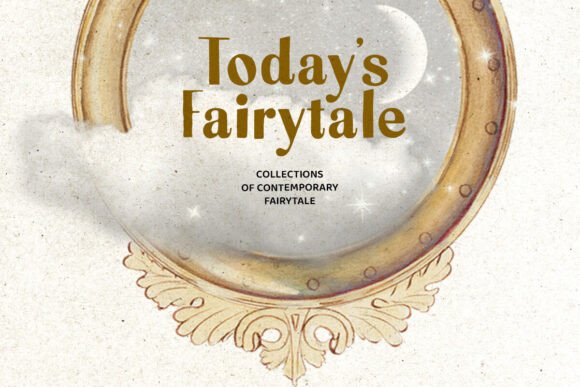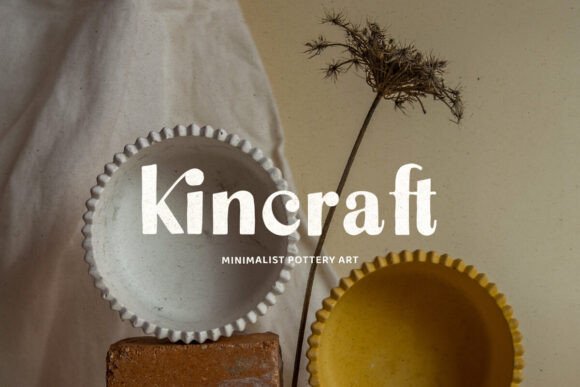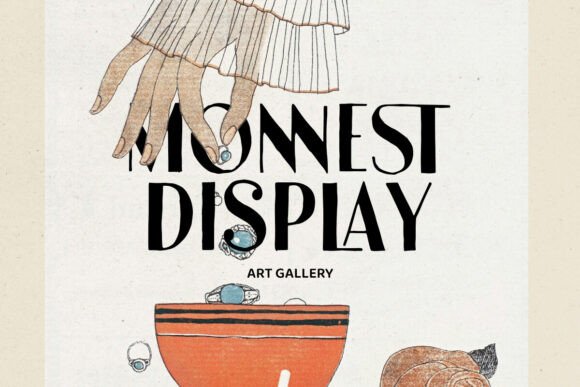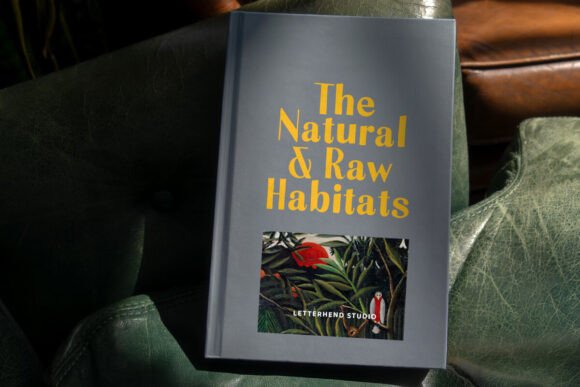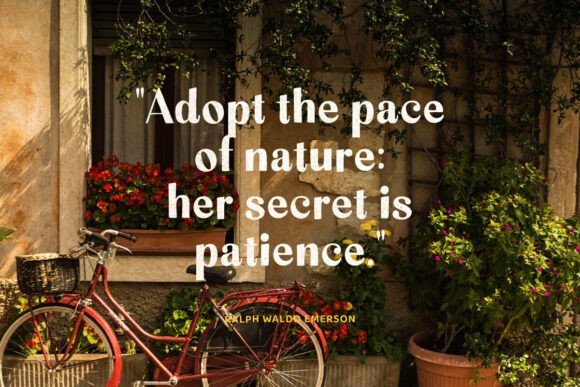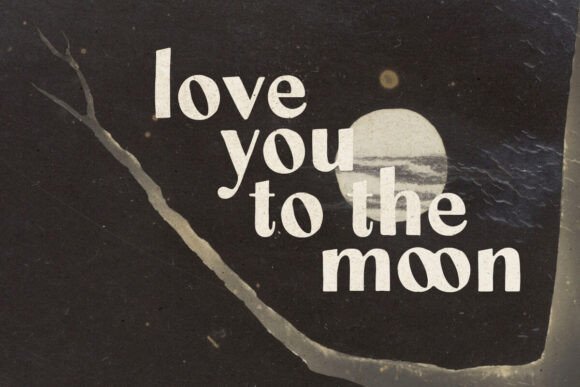
Casa Magica Font: The Perfect Blend of Cozy and Stylish
Are you on the hunt for a font that exudes both warmth and sophistication? Look no further than Casa Magica, a beautiful handwritten sans serif font that is sure to captivate your audience. With its slender form and airy feel, this font offers the perfect blend of coziness and style, making it an excellent choice for designers and crafters alike.
The Characteristics of Casa Magica Font
Casa Magica is a unique and versatile font that boasts a range of characteristics that set it apart from other fonts. Its handwritten sans serif design gives it a personal and approachable feel, while its skinny form adds a touch of elegance and sophistication. The font’s light and airy texture makes it perfect for use in a variety of design projects, from playful brand identities to casual event materials.
Versatility and Creative Potential
One of the standout features of Casa Magica is its incredible versatility. This font can be used in a wide range of design projects, from:
- Playful brand identities: Add a touch of whimsy and fun to your brand with Casa Magica’s lighthearted and airy feel.
- Casual event materials: Use Casa Magica to create eye-catching invitations, posters, and flyers for events like weddings, parties, and festivals.
- Digital content: Casa Magica is perfect for use in blog posts, social media graphics, and other digital content where a friendly and approachable tone is desired.
- Stationery and crafts: Add a personal touch to your stationery, cards, and craft projects with Casa Magica’s charming and elegant script.
Why Choose Casa Magica Font?
So why choose Casa Magica over other fonts? Here are just a few reasons why this font stands out:
- Unique and eye-catching: Casa Magica’s distinctive design is sure to grab attention and leave a lasting impression.
- Easy to read: Despite its slender form, Casa Magica is incredibly legible, making it perfect for use in body text and other long-form content.
- Highly versatile: Casa Magica can be used in a wide range of design projects, from playful and casual to elegant and sophisticated.
- Warm and inviting: This font exudes a sense of warmth and coziness, making it perfect for designers and crafters who want to add a personal touch to their work.
Tips for Using Casa Magica Font
To get the most out of Casa Magica, here are a few tips to keep in mind:
- Pair with contrasting fonts: Casa Magica looks great when paired with bold and chunky fonts, which help to create a striking contrast.
- Experiment with colors: This font looks great in a range of colors, from bright and bold to soft and pastel.
- Use it sparingly: While Casa Magica is a beautiful font, it can be overwhelming if overused. Try using it as a headline or title font, and pairing it with a more straightforward font for body text.
In conclusion, Casa Magica is a truly unique and captivating font that is sure to add a touch of warmth and charm to your design projects. With its slender form, airy texture, and highly versatile design, this font is perfect for designers and crafters who want to create eye-catching and engaging work. Whether you’re designing for a playful brand or a casual event, Casa Magica is an excellent choice.